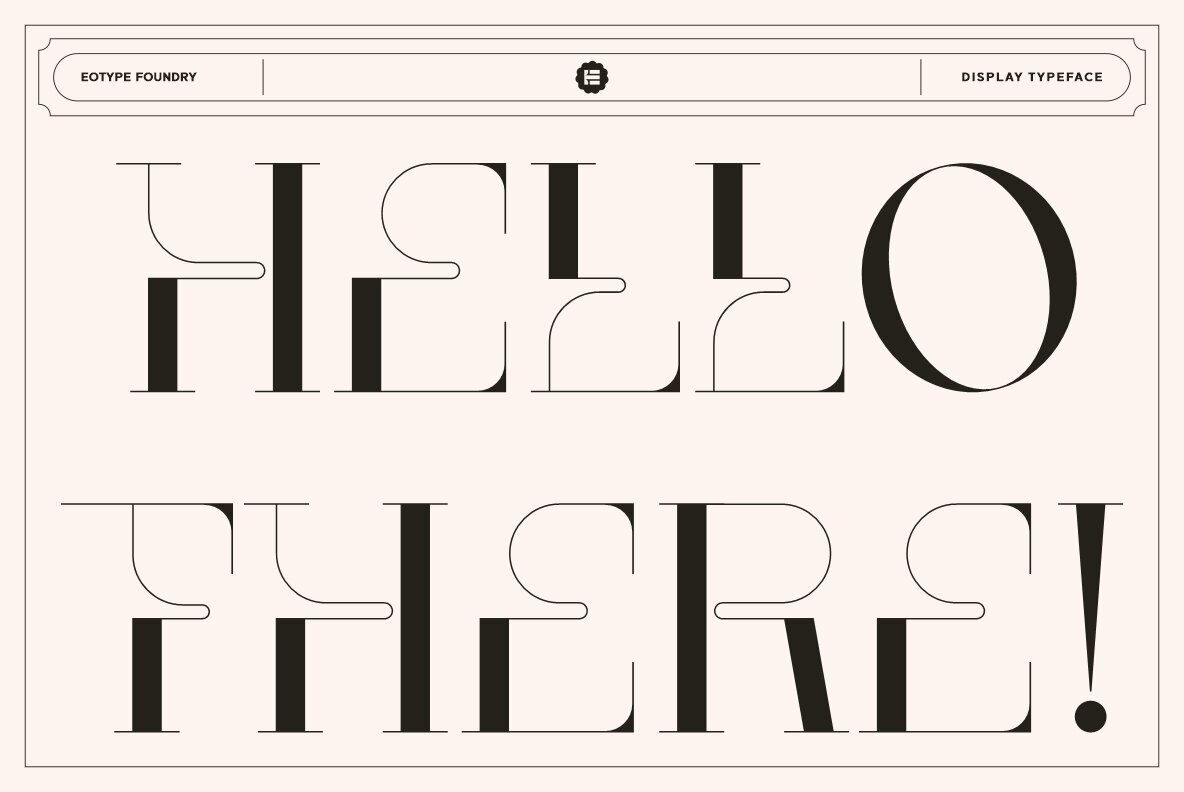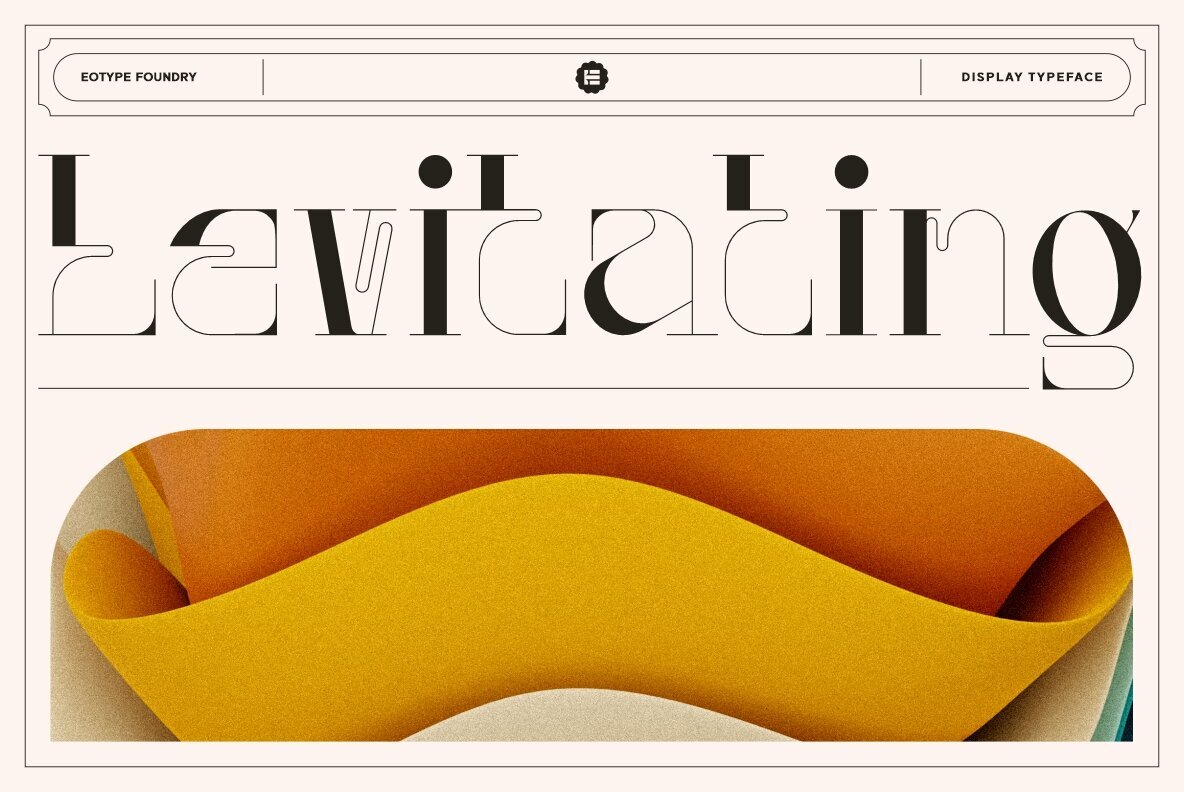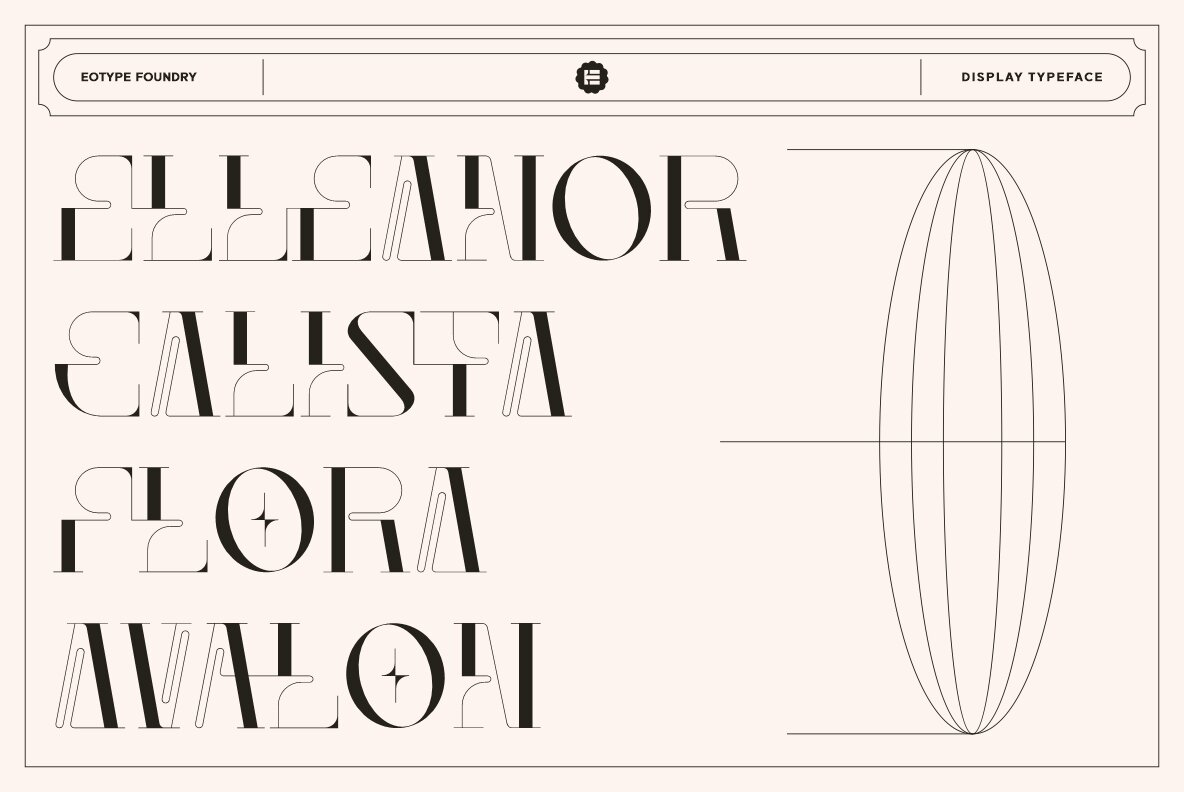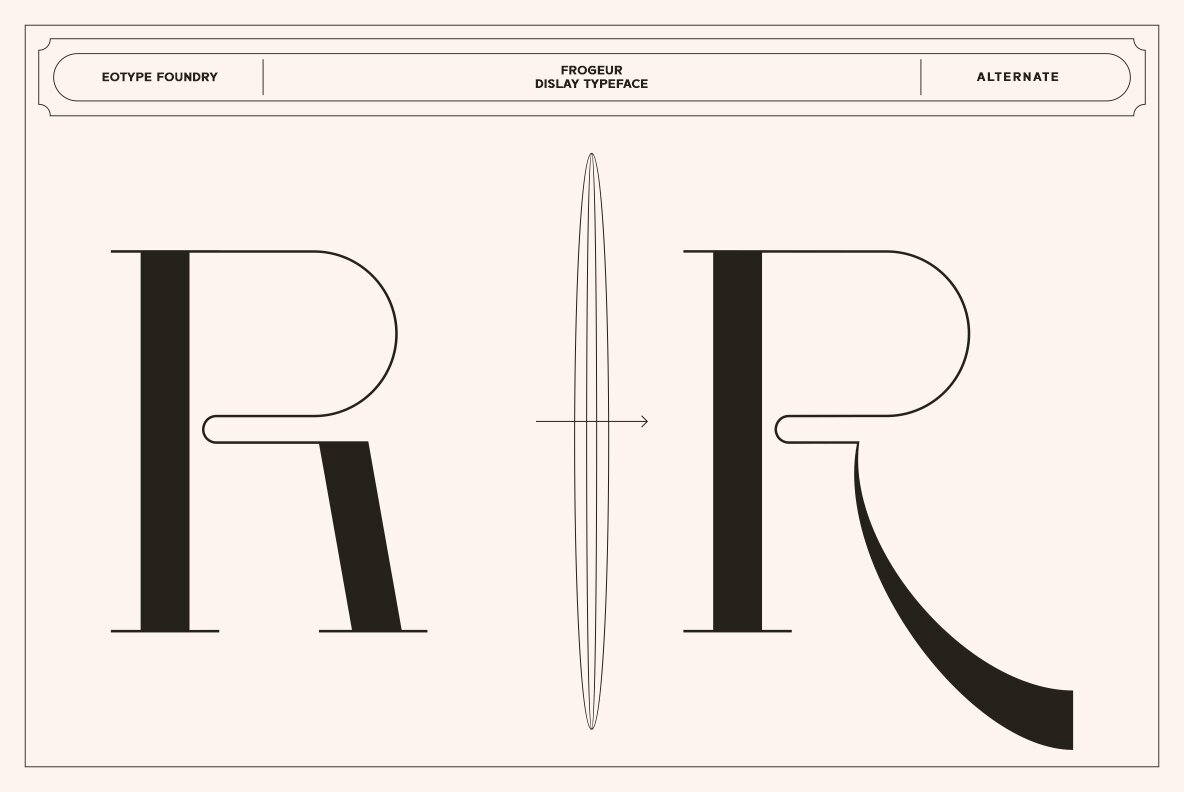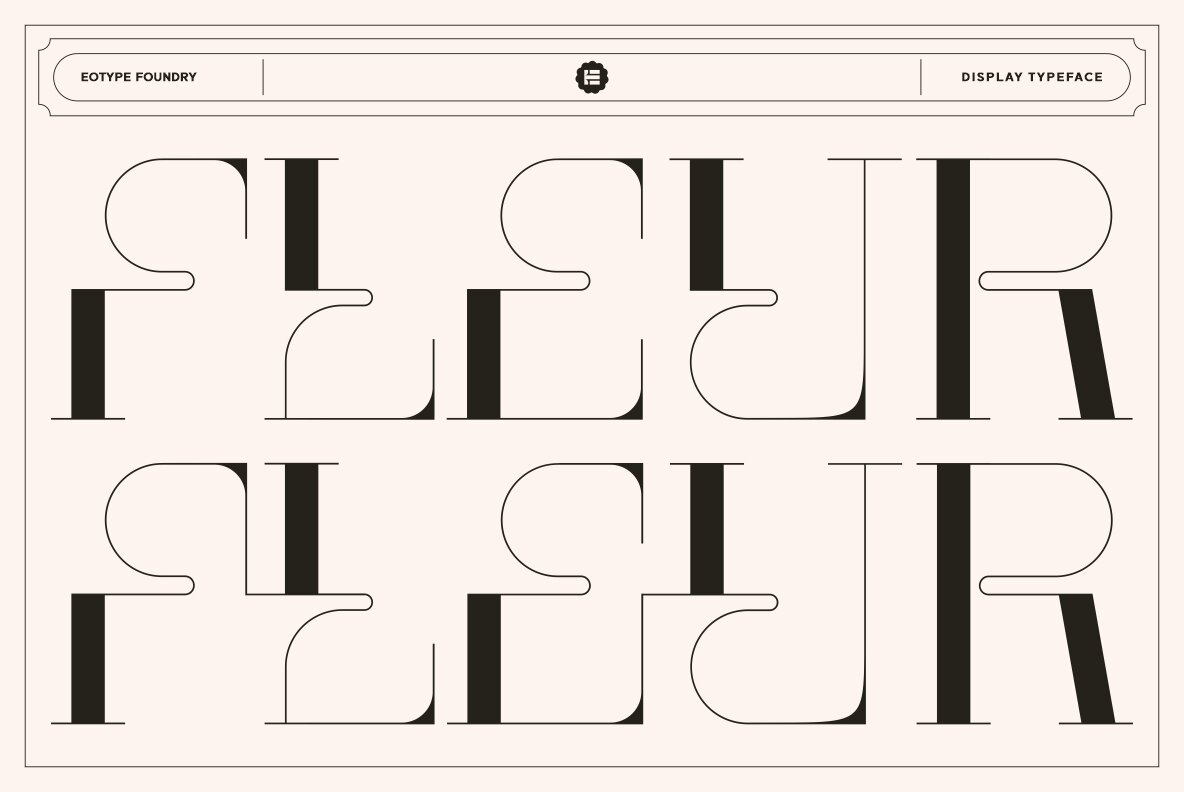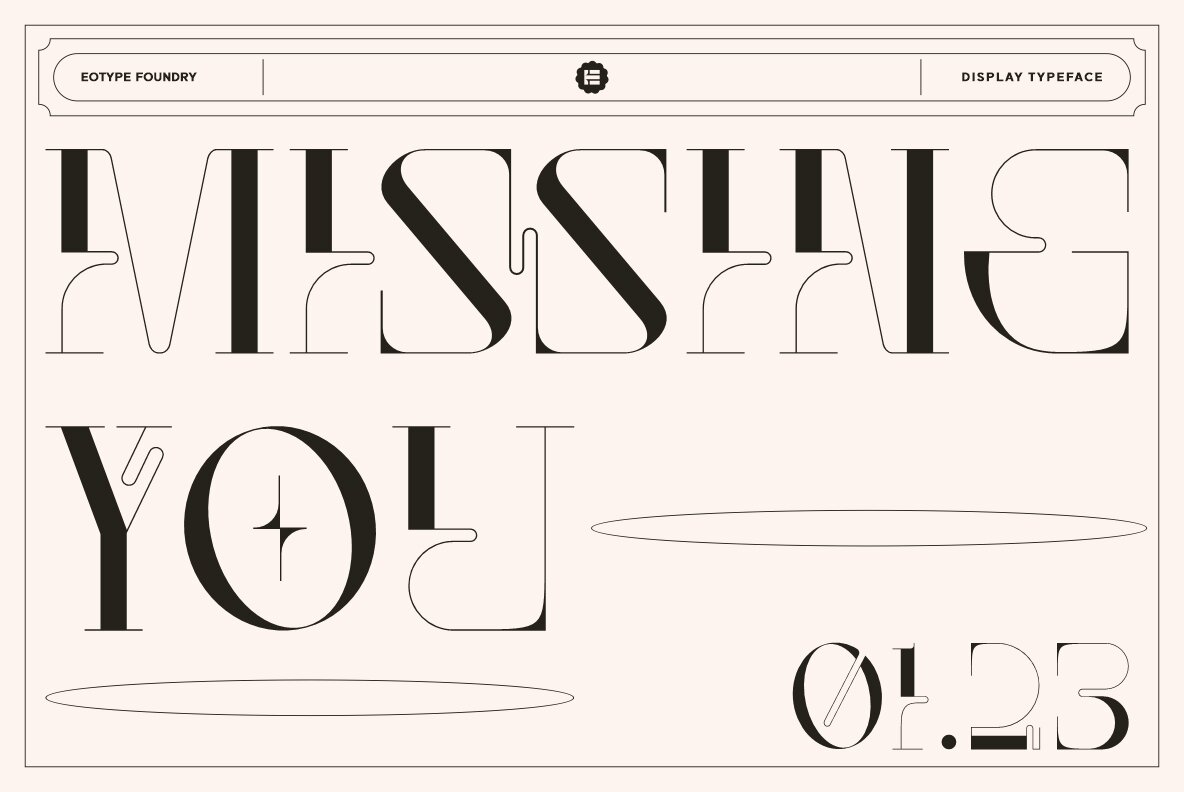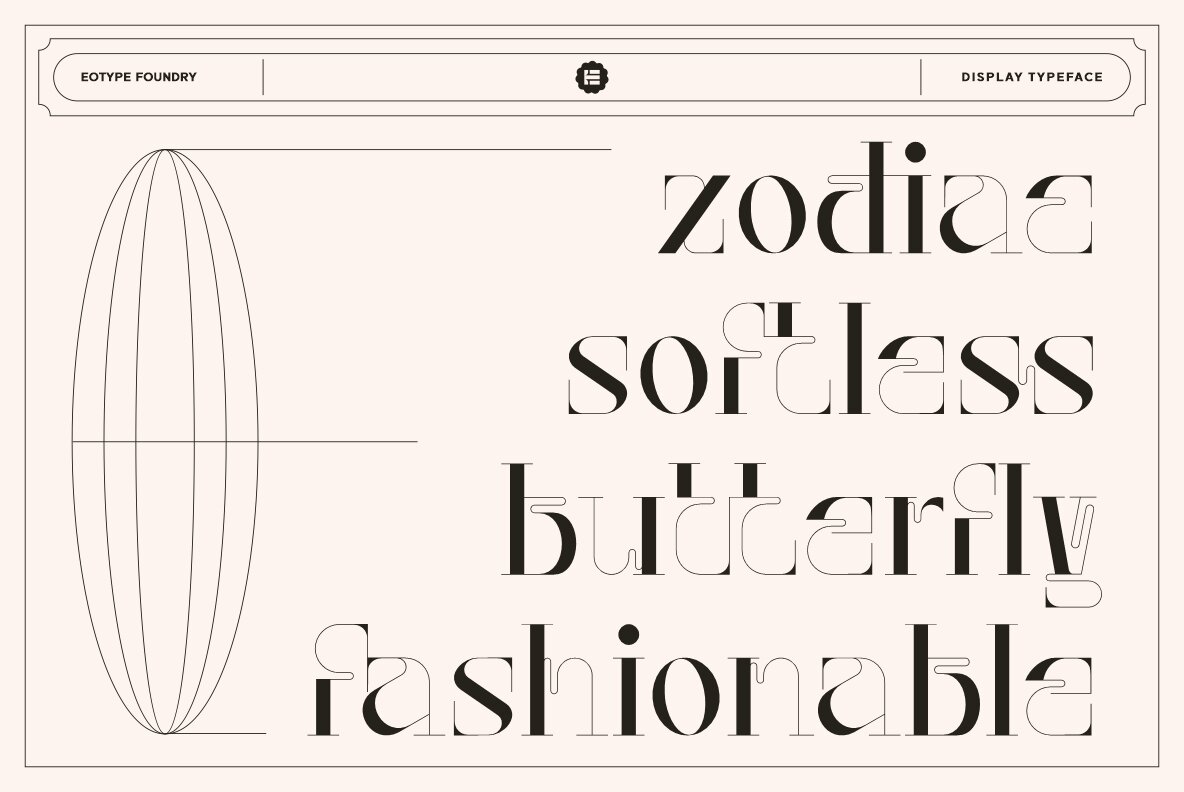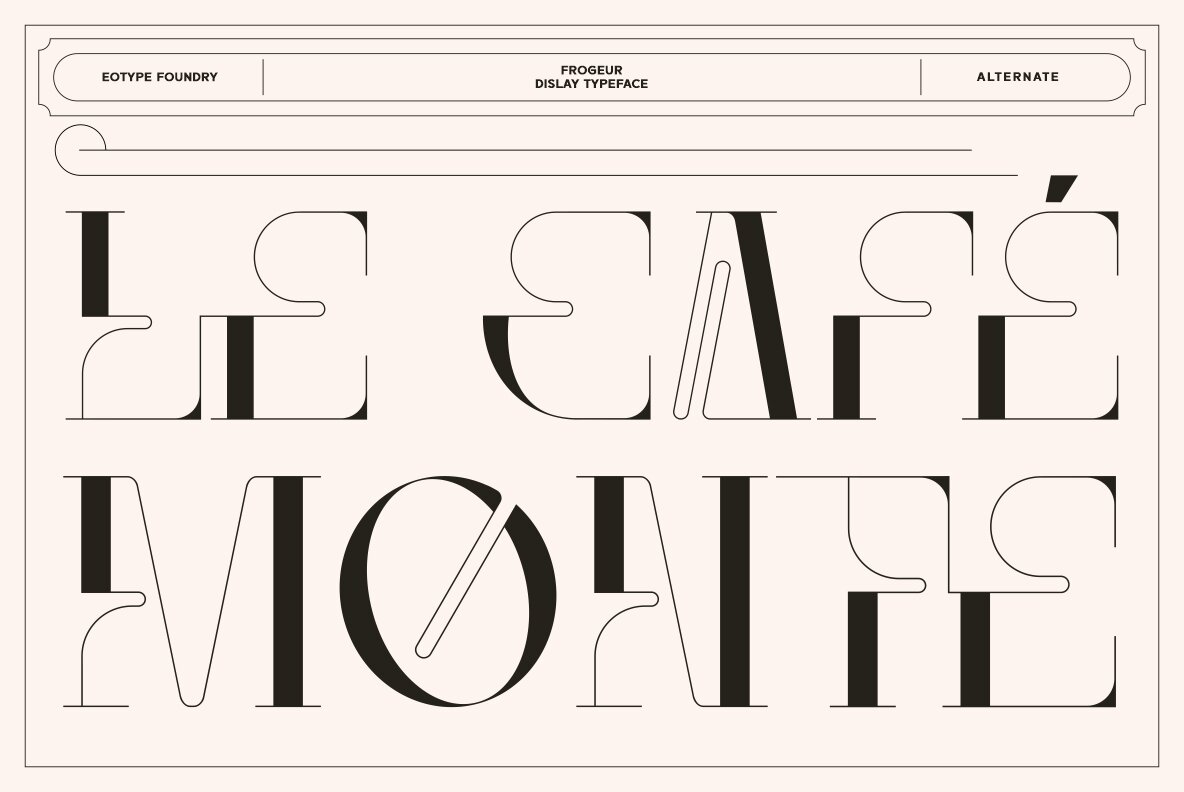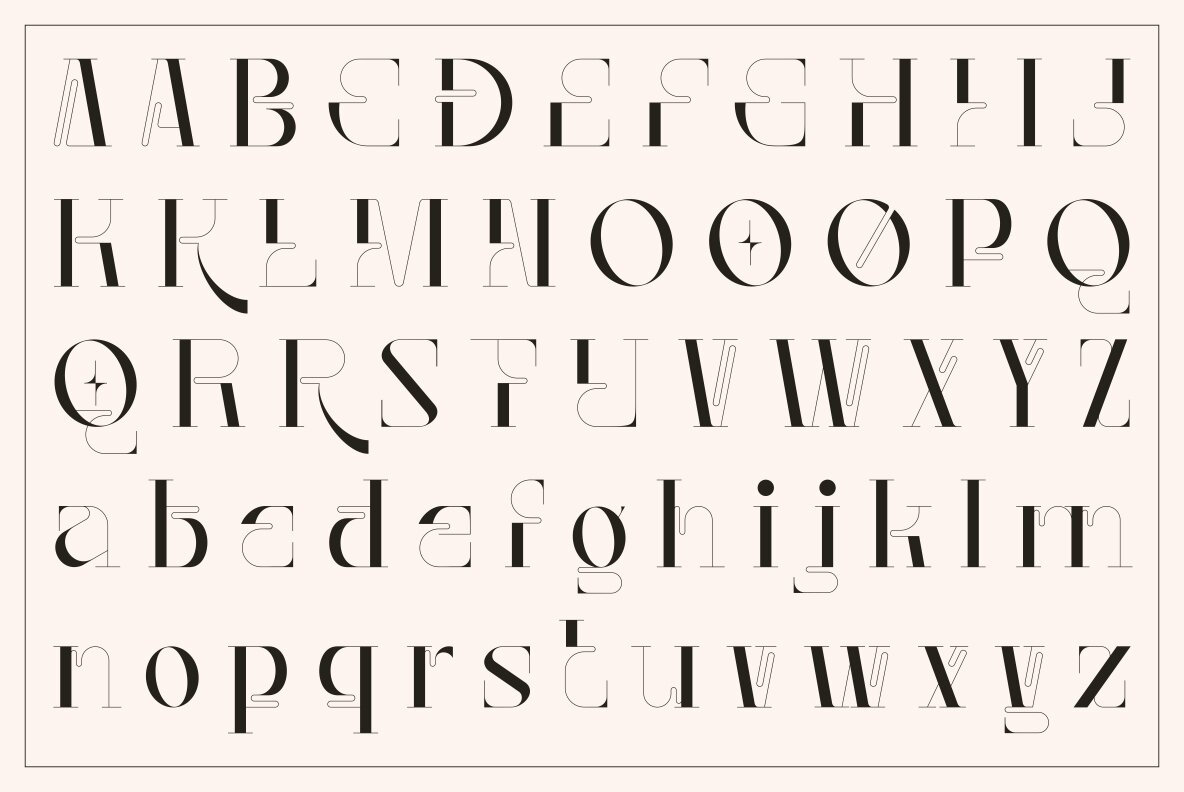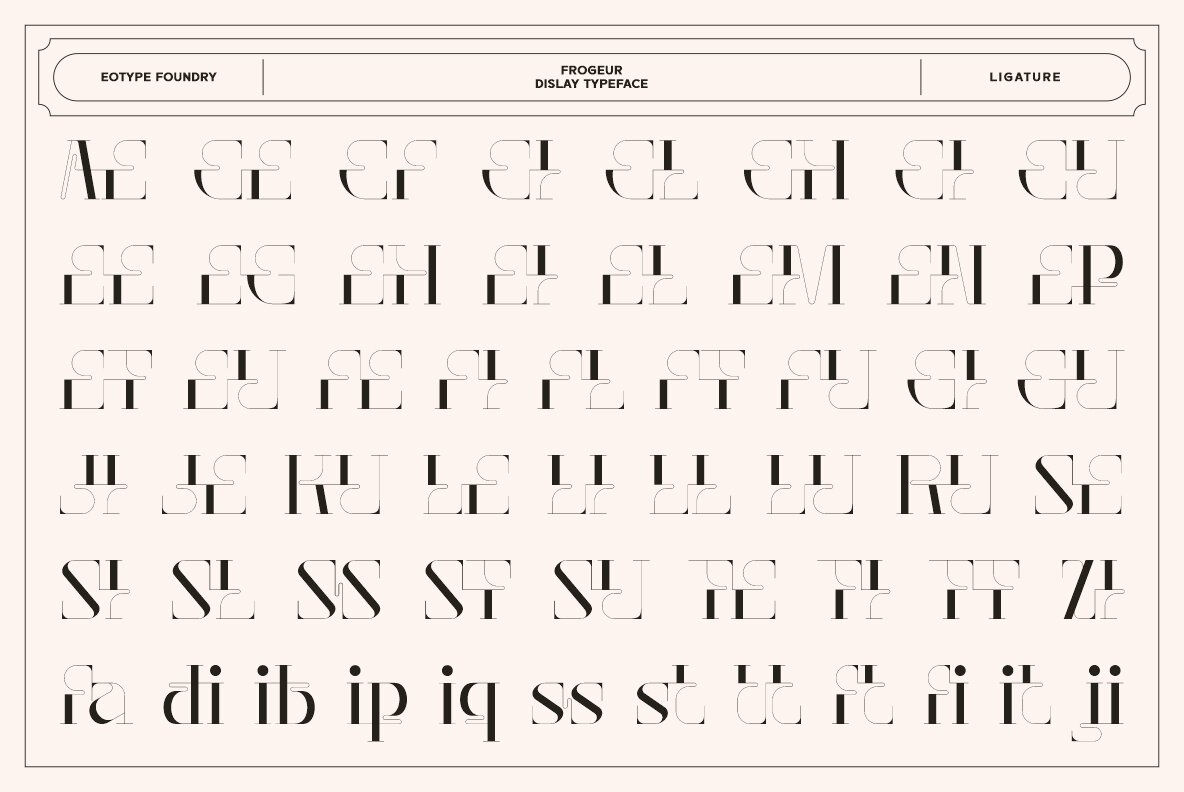
Frogeur Font
Frogeur Regular
Frogeur is a stylish modern serif font characterized by extreme contrast between thick and thin lines. This font has half vertical tension and minimal design thin serifs. This font has alternate and ligature features that give you access to a unique collection of letters. You can use this font for brand projects, product labels, logos, posters and more.